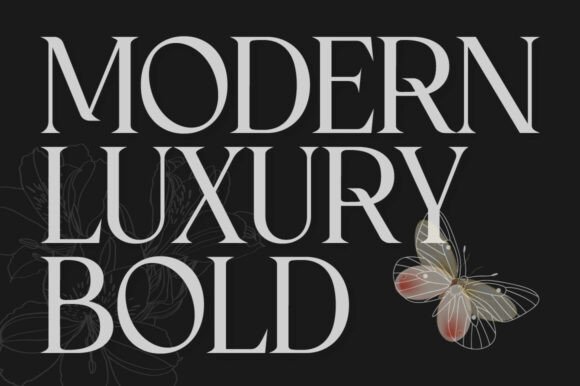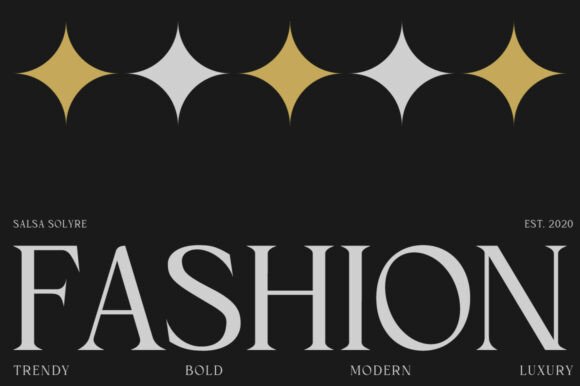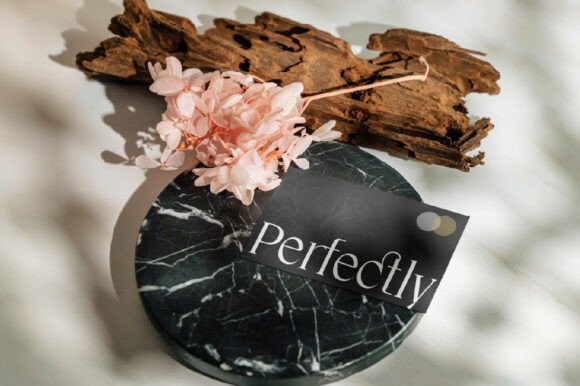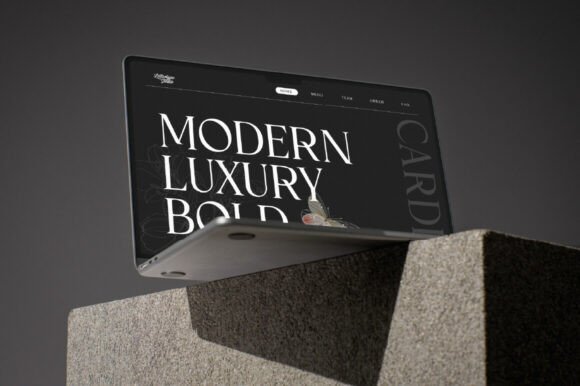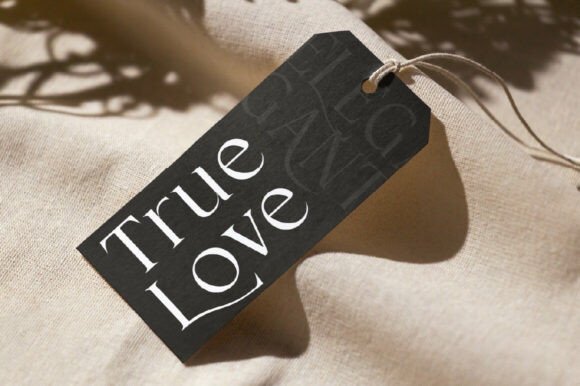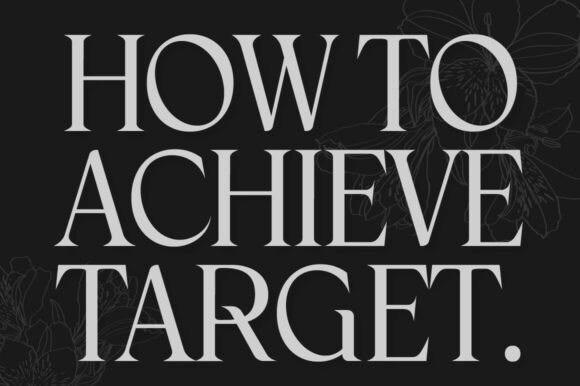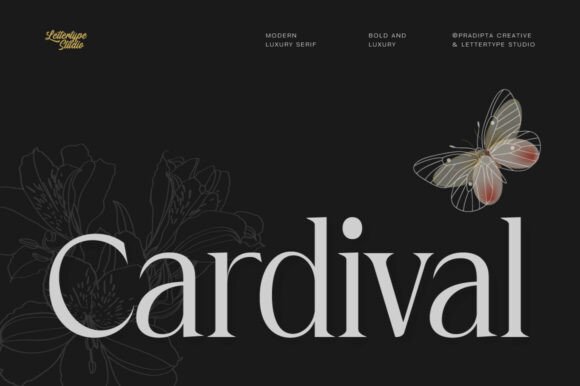
Introducing Cardival Font: The Epitome of Modern Luxury and Sophistication
In the world of typography, a font can make or break the visual identity of a brand. For designers and crafters seeking to create a lasting impression, Cardival Font emerges as a game-changer. This striking serif font masterfully combines boldness with modern luxury, making it the perfect choice for high-end branding projects that exude sophistication and class.
Design Characteristics of Cardival Font
Cardival Font boasts clean lines, sharp contrasts, and elegant curves that set it apart from other serif fonts. Its design is meticulously crafted to convey a sense of luxury and refinement, making it an ideal choice for fashion lines, editorial headlines, and any design that requires a touch of elegance.
The font’s boldness is balanced by its modern aesthetic, ensuring that it stands out without appearing overpowering. This delicate balance makes Cardival Font versatile, suitable for a wide range of applications, from high-end brand logos to editorial content that demands attention.
Key Features of Cardival Font
- Bold and Modern Design: Cardival Font features a bold design that is both modern and luxurious, perfect for making a statement.
- Sophisticated Aesthetic: Its clean lines and elegant curves provide a sophisticated look that is ideal for high-end brands and fashion lines.
- Versatility: The font’s balanced design makes it versatile for various applications, including branding, editorial headlines, and more.
- Elegance: Cardival Font adds a touch of elegance to any design, ensuring that the final product stands out with class and sophistication.
Who Can Benefit from Cardival Font?
Cardival Font is designed for those who appreciate modern, luxurious aesthetics and want to stand out with a strong, bold statement. This includes:
- High-End Brands: For brands that aim to convey luxury and sophistication, Cardival Font is an excellent choice for logos, marketing materials, and website headers.
- Fashion Designers: Fashion lines and designers can leverage the font’s elegant and modern look to create visually stunning branding and advertising materials.
- Editorial and Publishing: Editorial projects, such as magazines, newspapers, and book titles, can benefit from the font’s bold and sophisticated appearance.
- Graphic Designers: Designers looking for a versatile and impactful font to elevate their projects will find Cardival Font to be a valuable addition to their toolkit.
How to Use Cardival Font Effectively
To maximize the impact of Cardival Font, consider the following tips:
- Pair with Complementary Fonts: For body text, pair Cardival Font with simpler, sans-serif fonts to create contrast and enhance readability.
- Use for Headings and Titles: Utilize Cardival Font for headings, titles, and key messages to draw attention and convey luxury.
- Experiment with Colors: While Cardival Font looks stunning in black and dark colors, don’t hesitate to experiment with other colors that align with your brand’s palette.
- Consider Font Sizes: Ensure that the font size is chosen appropriately for the medium. For instance, larger sizes for billboards and smaller sizes for digital devices.
Cardival Font is more than just a typeface; it’s a statement of luxury, modernity, and sophistication. Its unique blend of boldness and elegance makes it an indispensable tool for designers and crafters aiming to create high-end branding projects. Whether you’re working on a fashion line, editorial content, or any design that demands class, Cardival Font is poised to elevate your work to new heights of visual excellence.
Embrace the power of Cardival Font to transform your designs, make a bold statement, and leave a lasting impression on your audience.